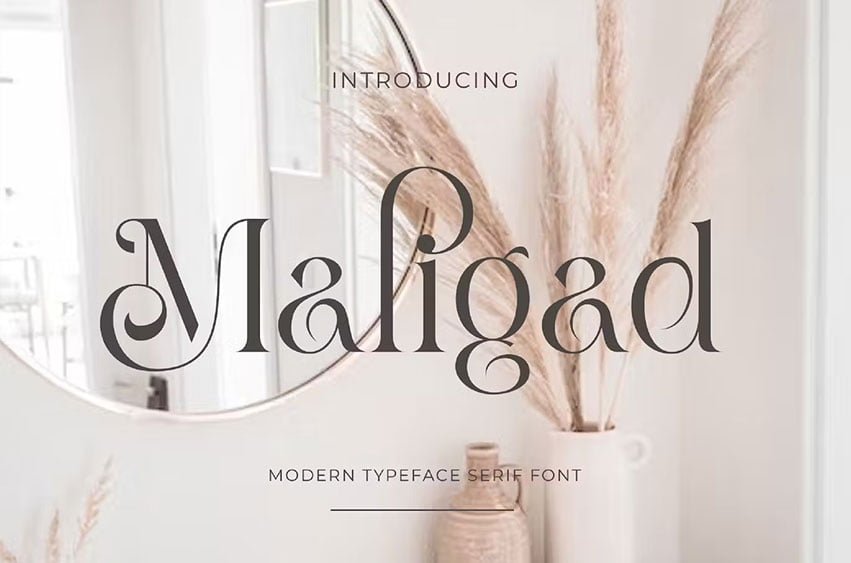
Maligad Font
Maligad Font Elegant Serif Font inspired by the famous minimalist logo perfect for the purposes of designing templates, brochures, videos, advertising branding, logos, invitation, layout design, elegant crafting, beauty design and more.